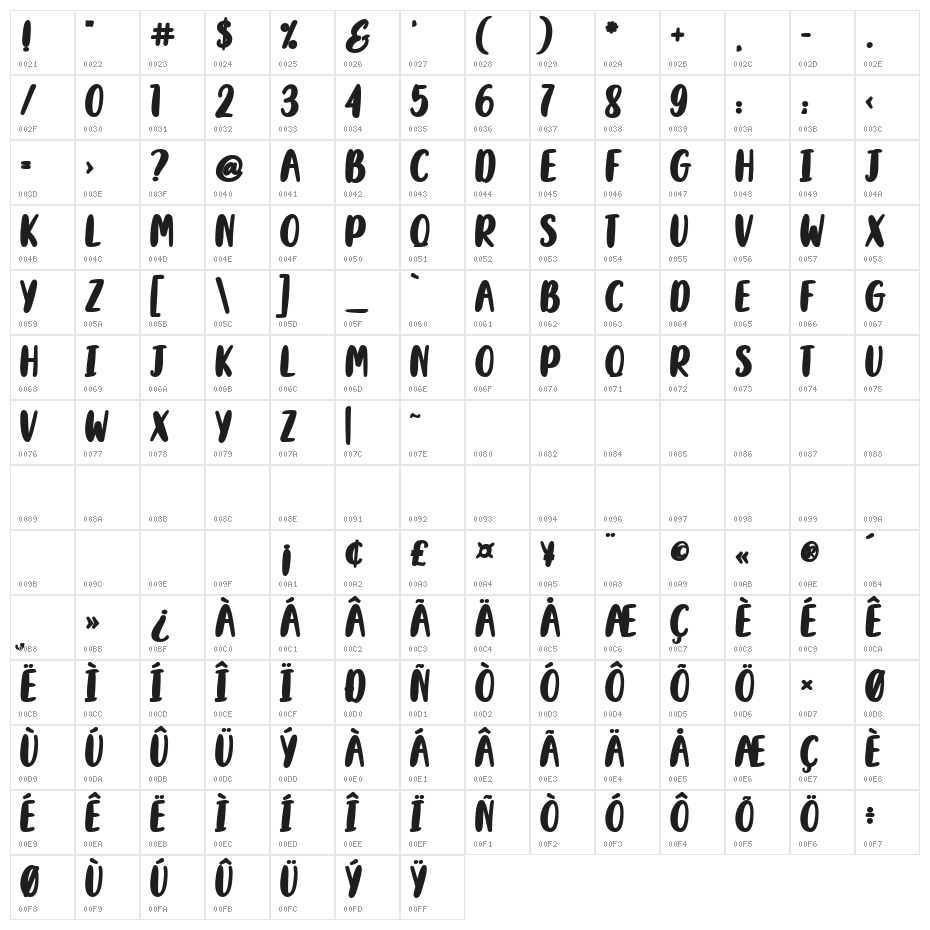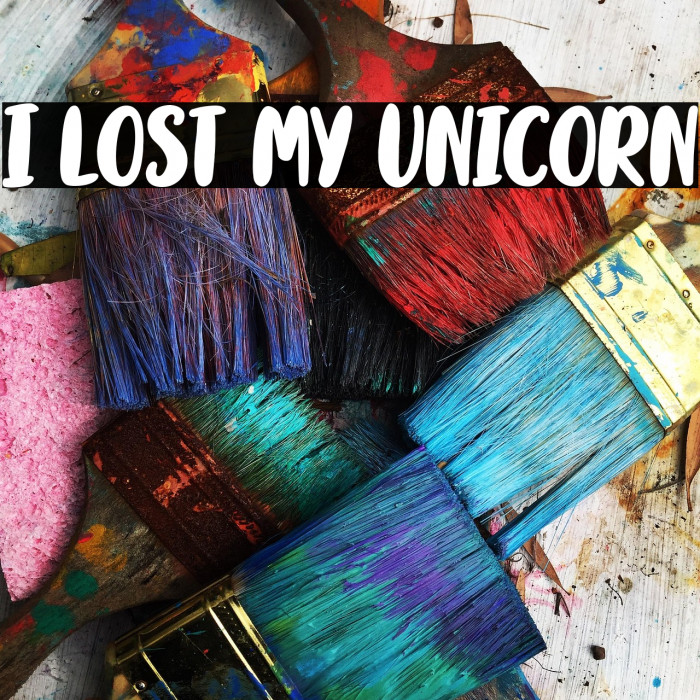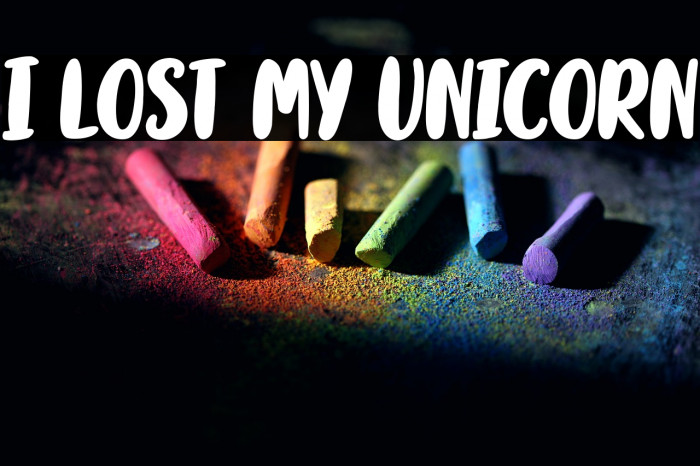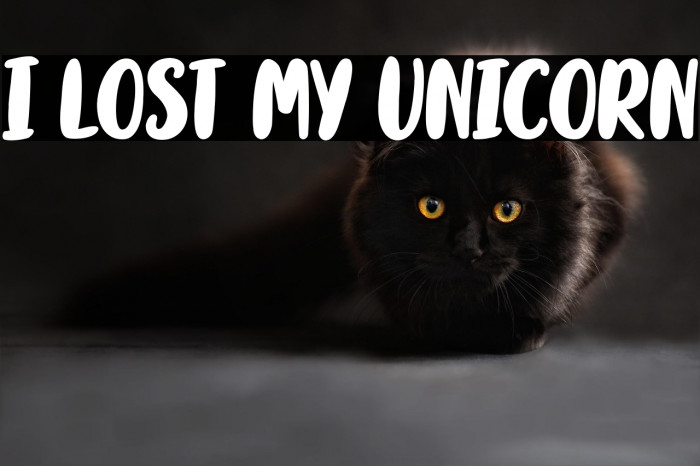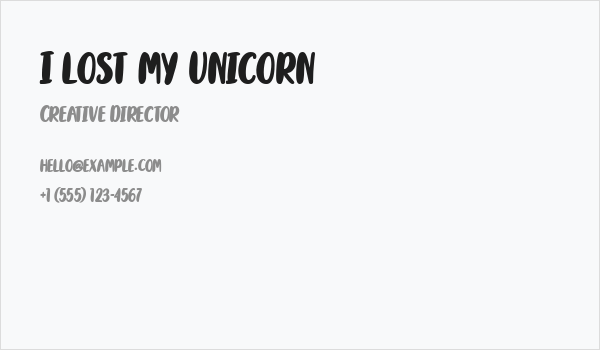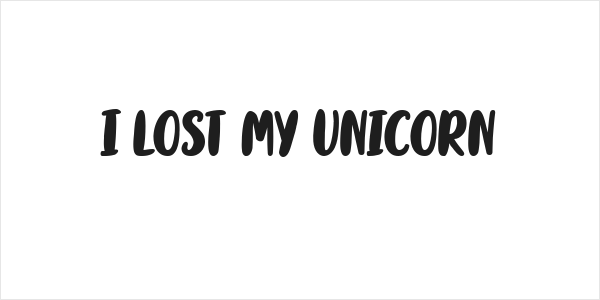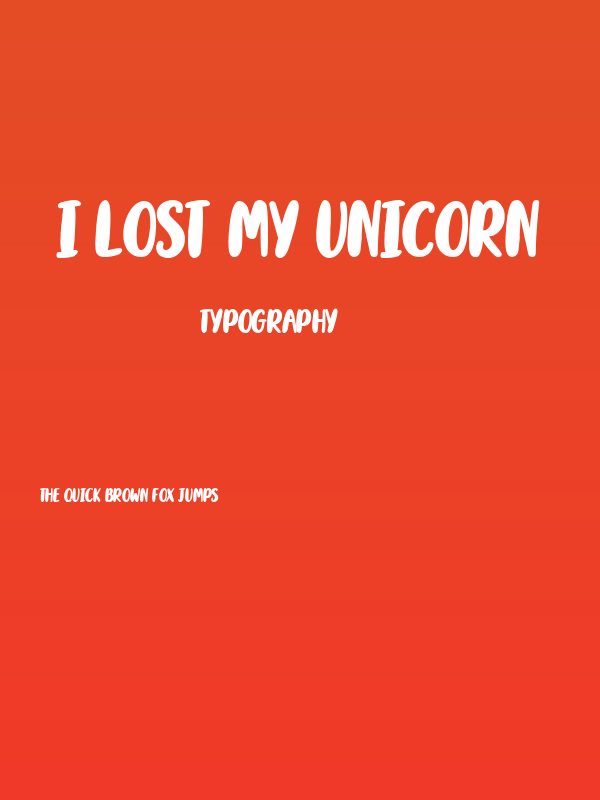
I lost my Unicorn Font
I lost my Unicorn Description
This font features a bold and playful handwritten style, characterized by its thick, rounded strokes and a slightly irregular baseline that adds a whimsical touch. The letters are closely spaced, contributing to a compact and energetic appearance. The uppercase and lowercase characters maintain a consistent weight, ensuring readability while conveying a sense of fun and creativity. The numerals and special characters are designed to match the playful aesthetic, making them suitable for a variety of informal and creative applications.